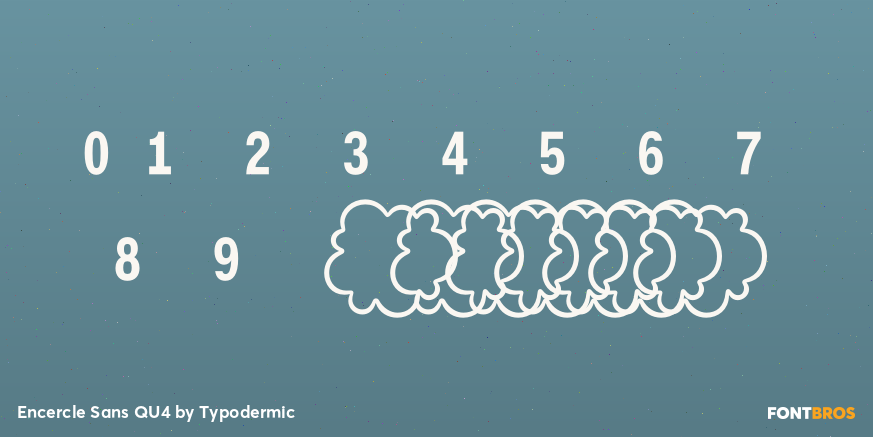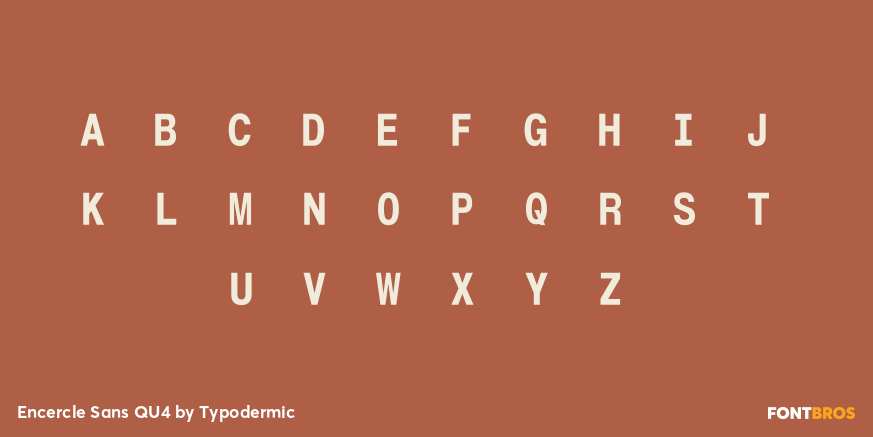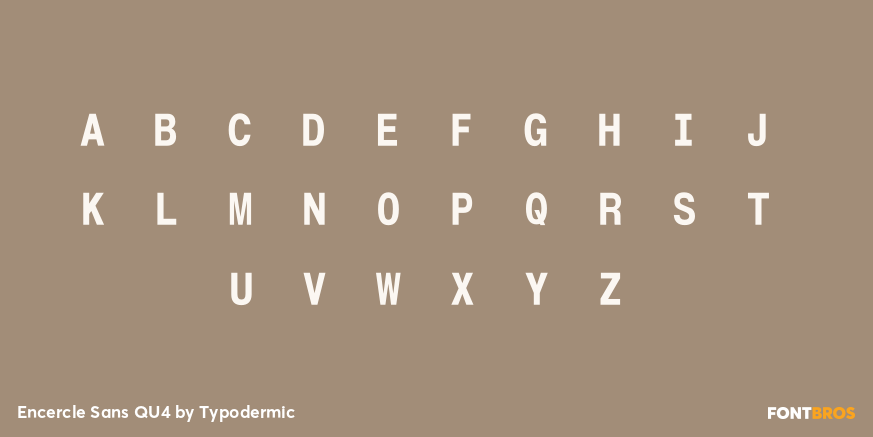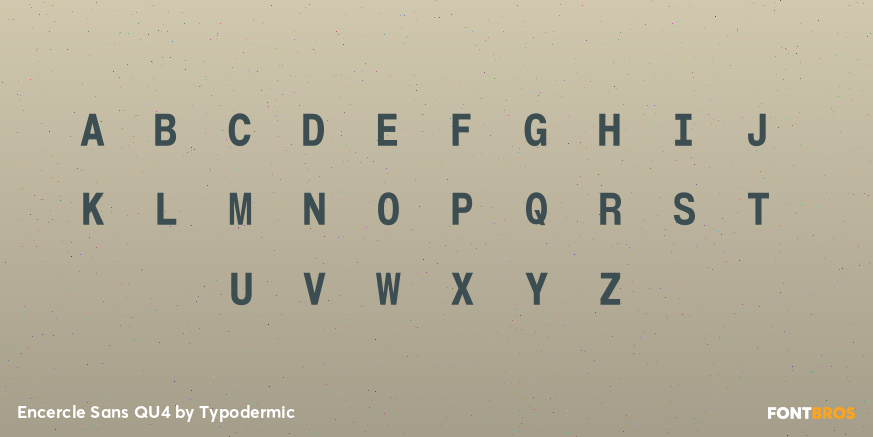
Encercle Sans QU4
Buy NowEncercle Sans QU4 gives labels a scalloped seal frame, turning a short code or number into a decorative highlight while retaining the family's automatic centering. QU4 Bold supplies the solid inverse seal with light lettering. It is the filled counterpart, not simply a heavier outline.
Use QU4 for featured exhibits, award references, children's activity-guide checkpoints, and special-event highlights on visitor maps or printed programs. It addresses searches for a scalloped-badge font, seal-number font, or editable exhibit-highlight marker.